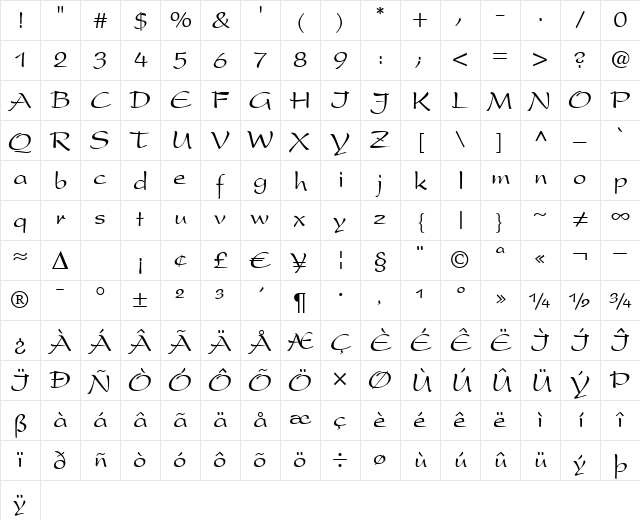
Script-P820 Regular
Complete Script-P820 Regular glyph index. Displaying only characters natively supported by Script-P820 Regular font.
Design Context for Script-P820
Script-P820 flows with the natural rhythm of handwritten lettering, making it ideal for designs that call for warmth and personal expression.
Font Pairing: Combine Script-P820 with a simple geometric sans for maximum contrast - the tension between flowing curves and clean structure is a classic typographic pairing.
Pro Tip: Use Script-P820 for short runs of text - names, titles, or taglines. Extended body copy in script faces tires the eye quickly.